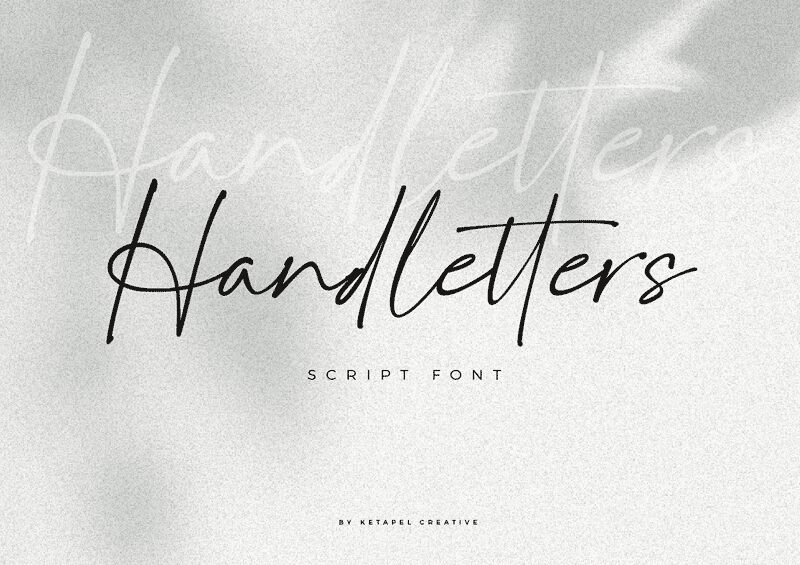
Handletters is an incredibly distinct, delicate and timeless handwritten font. It looks stunning on wedding invitations,
thank you cards, quotes, greeting cards, logos, business cards and every other design which needs a handwritten touch.
Includes in uppercase, lowercase, standard numbers & punctuation, multilingual support.